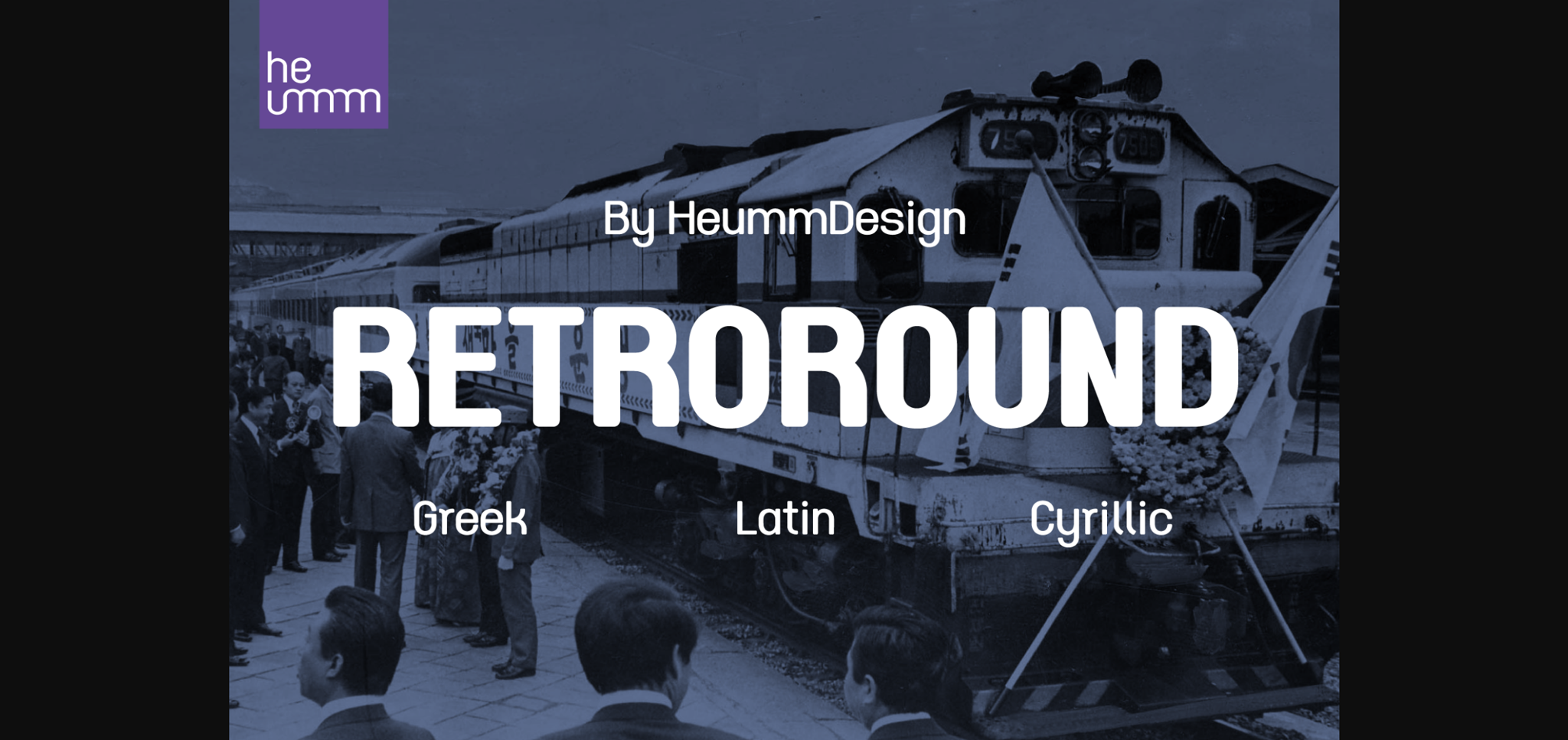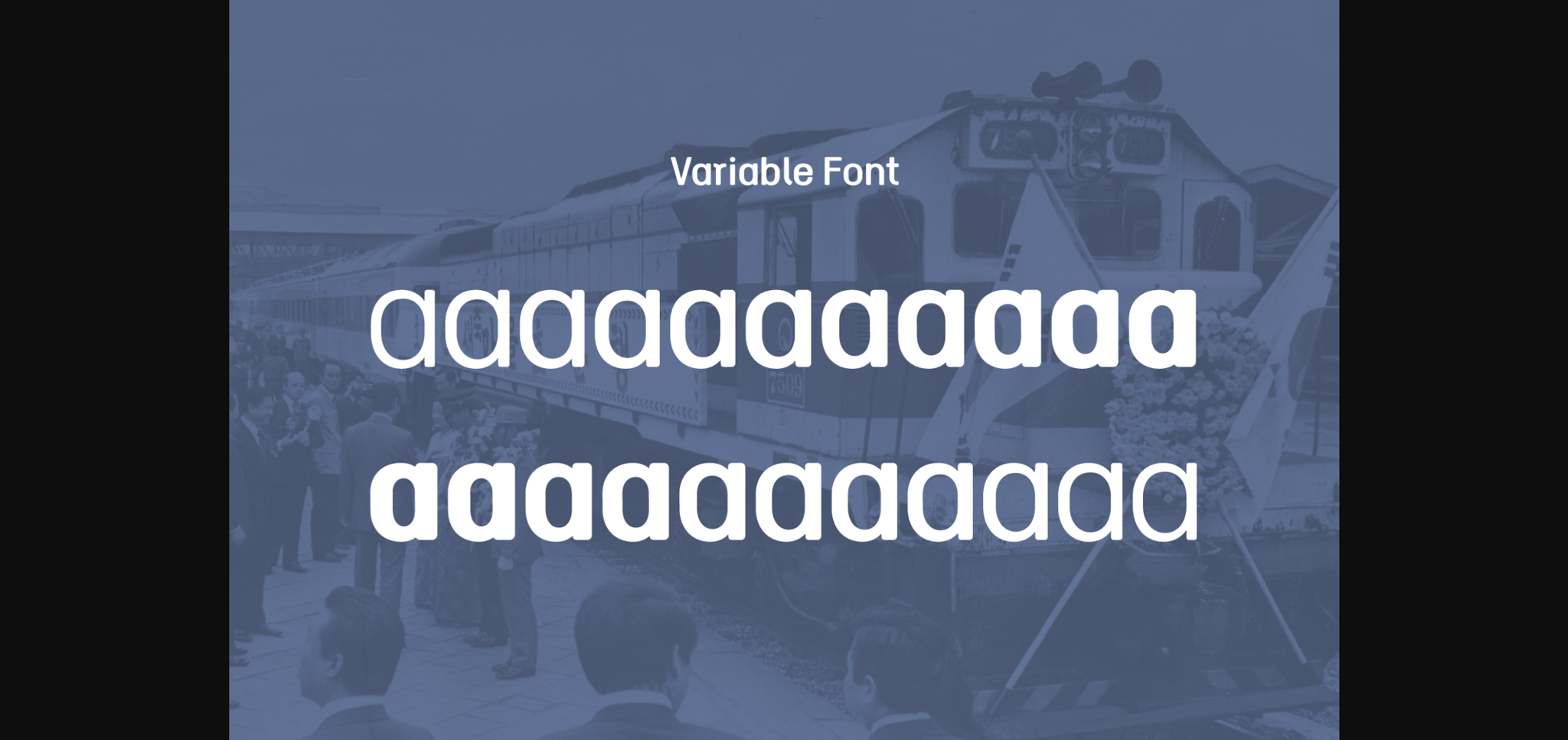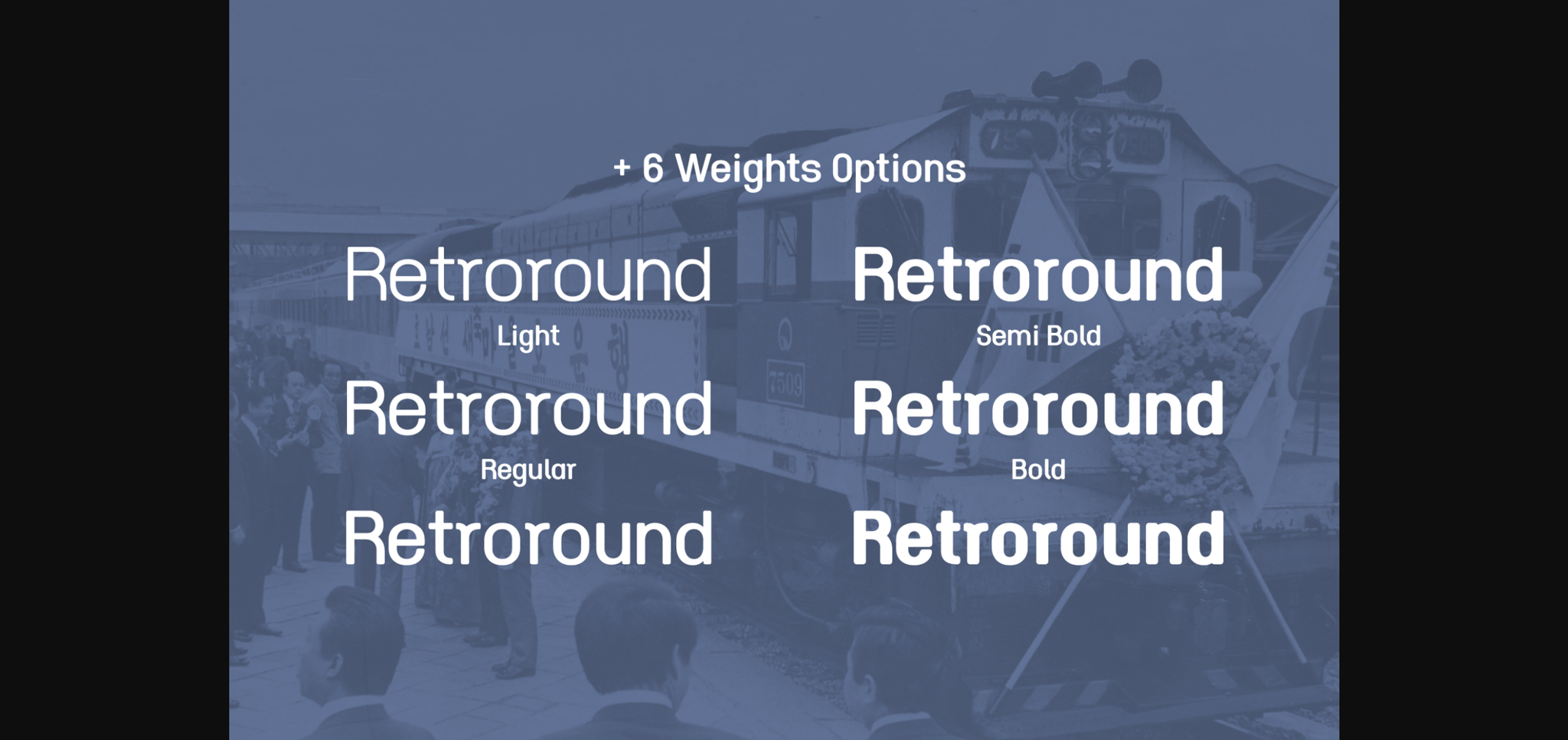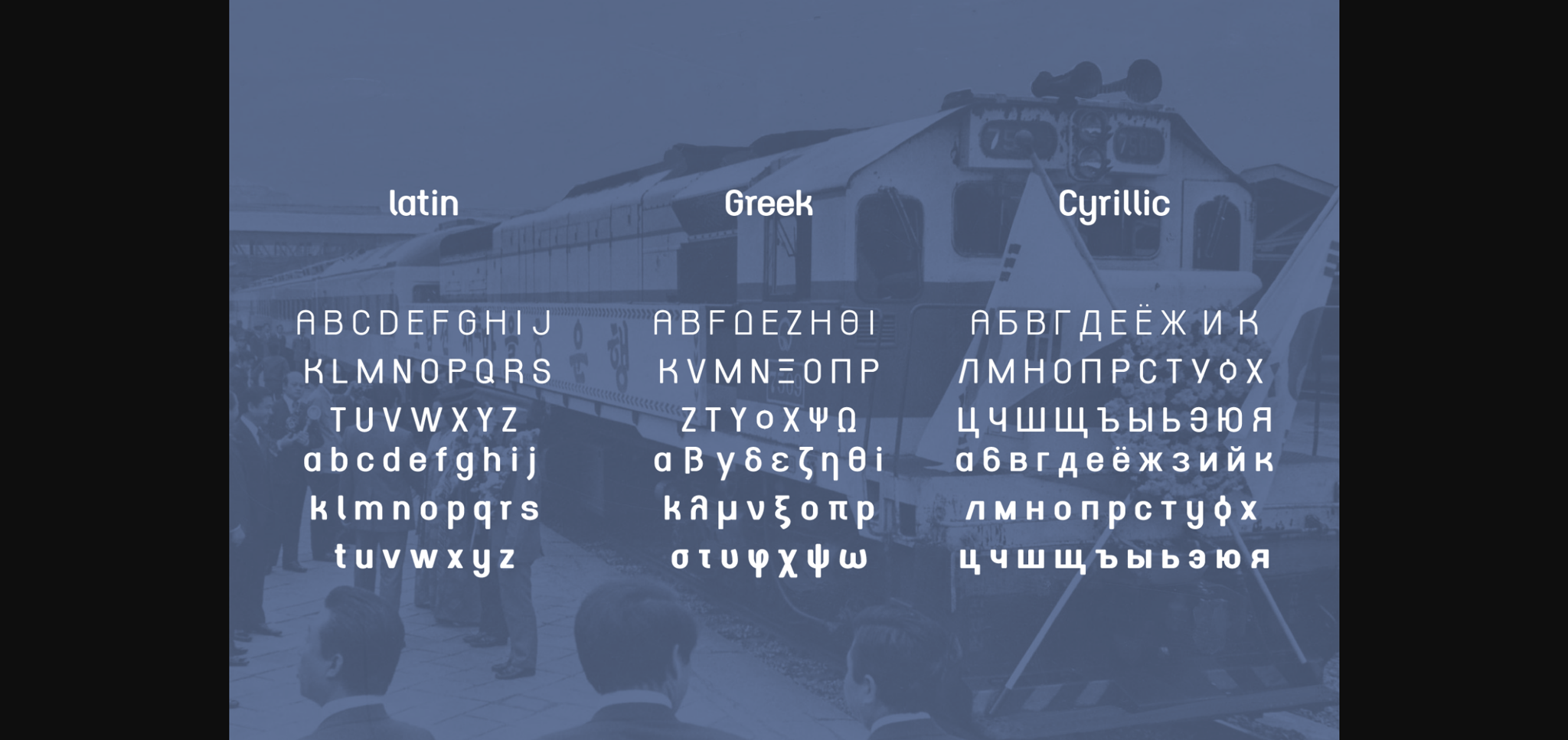
About Retroround Font
Retroround is a font that captures the feel of the retro typefaces used on signboards during Korea’s modernization era. This font has a variable function, allowing users to fine-tune the thickness they want. (Available only in Adobe programs.) Six basic weights are provided so that they can be used even in programs that do not apply the variable function.